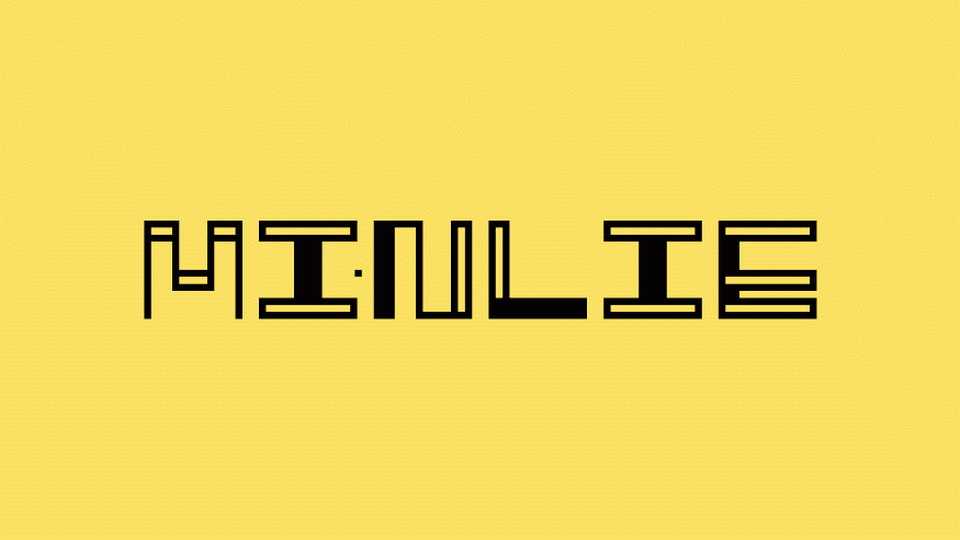
Download Minlie font, a simple all caps display typeface based on geometric modules. Minlie font is perfect for posters, headlines and typography compositions.